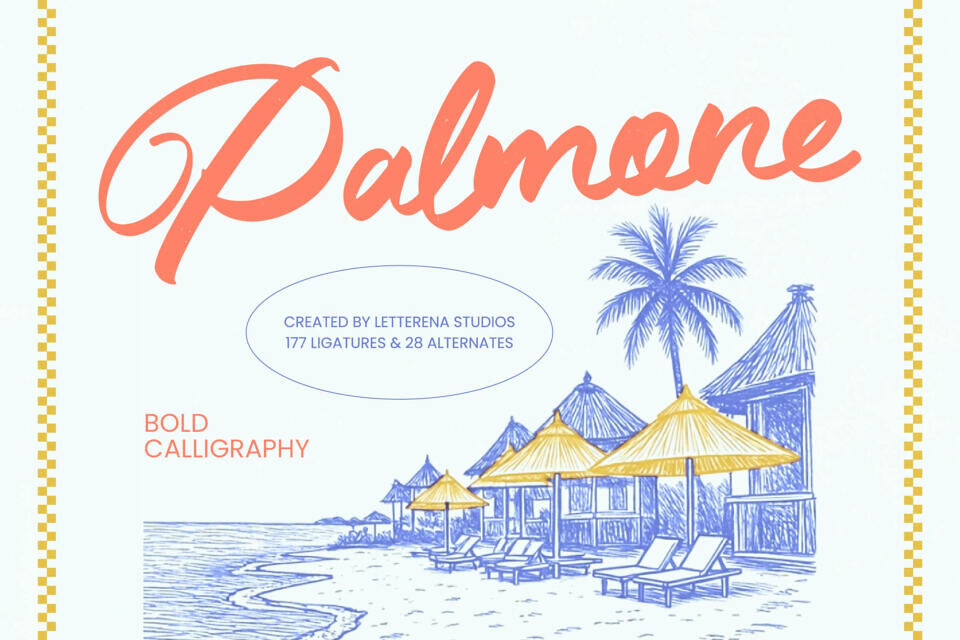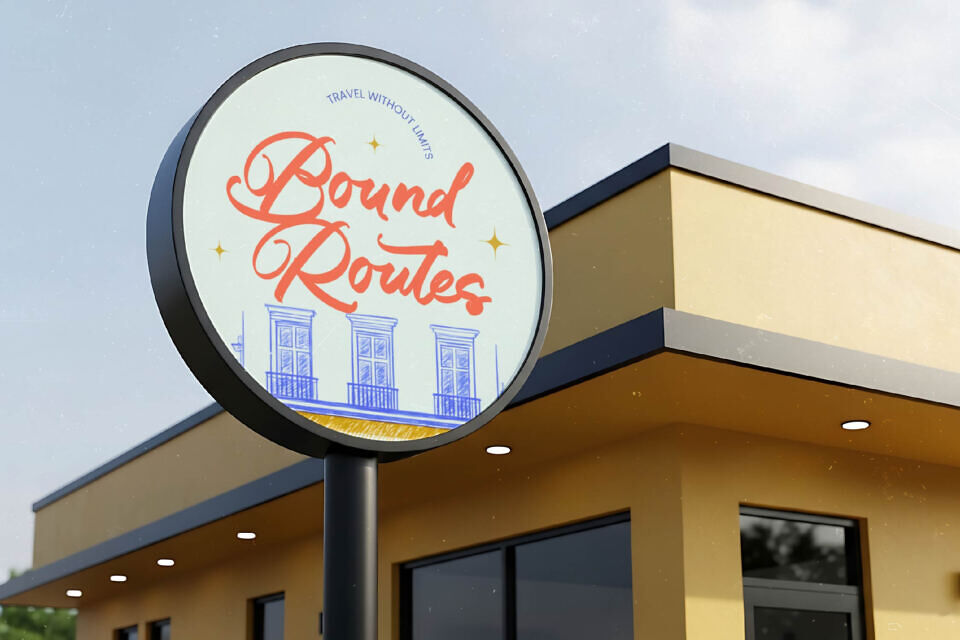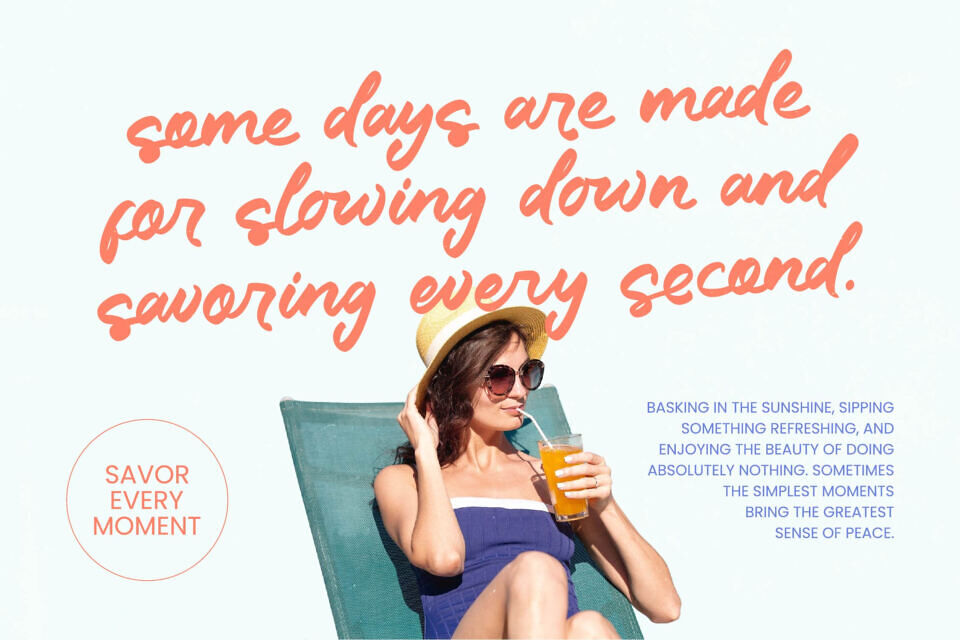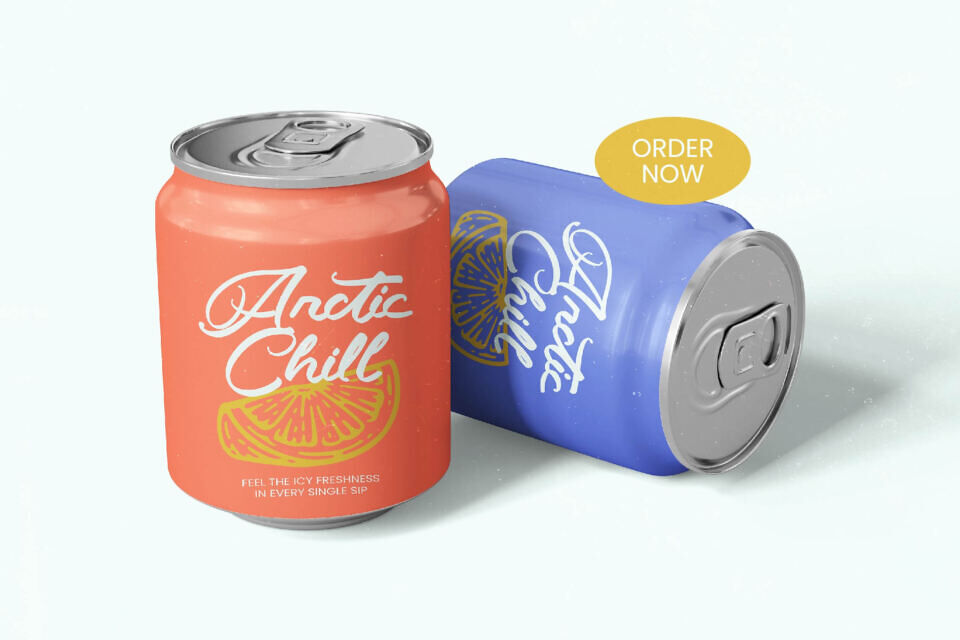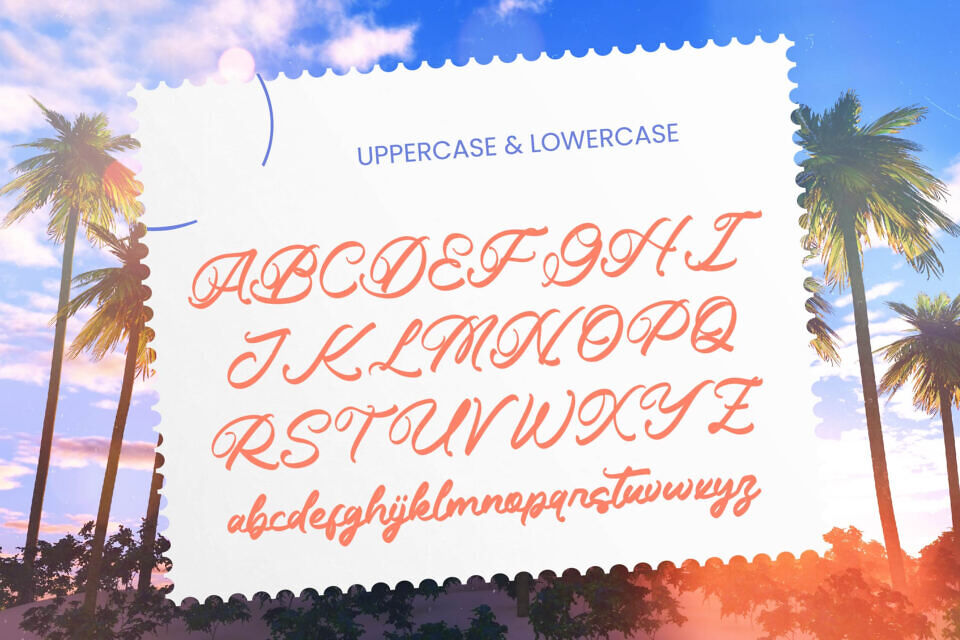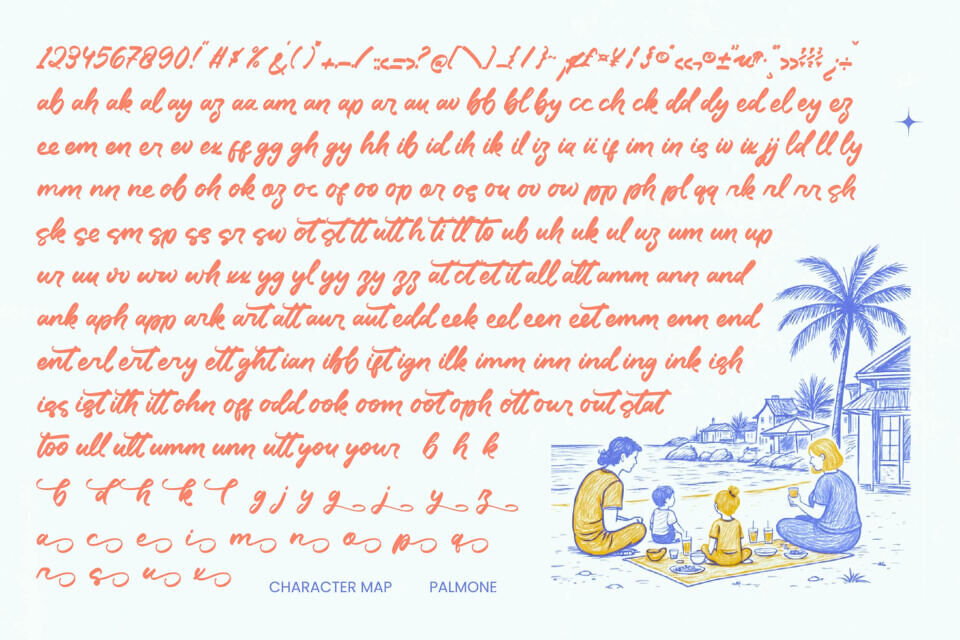
Palmone Font
Palmone is a sophisticated bold calligraphy font that exudes confidence and creativity. With 177 unique ligatures and 28 alternates, it offers designers flexibility to craft distinctive typography.
This versatile font supports multiple languages, making it perfect for global projects and luxury branding, adding a touch of exclusivity and warmth to any design. Its fluid legibility and bold style make it an essential tool for professionals, ideal for digital marketing, print media, and high-end design initiatives.